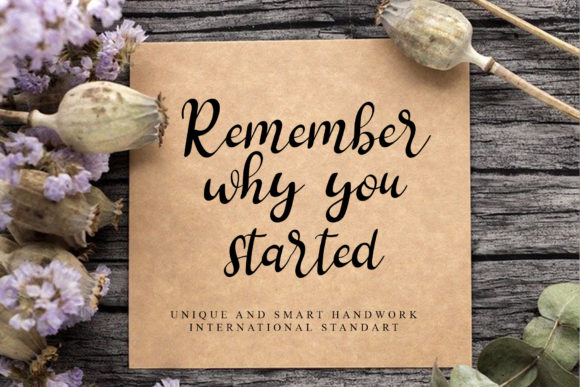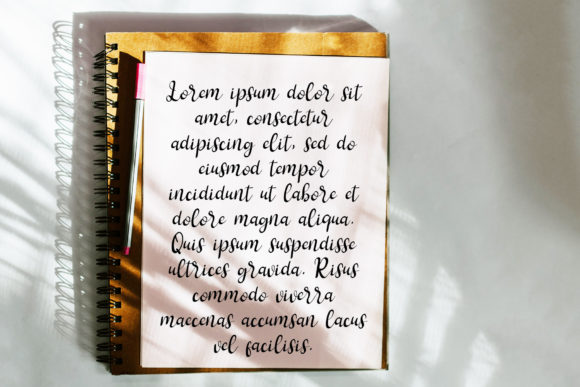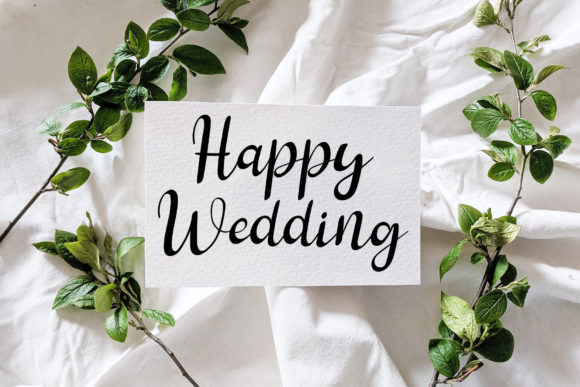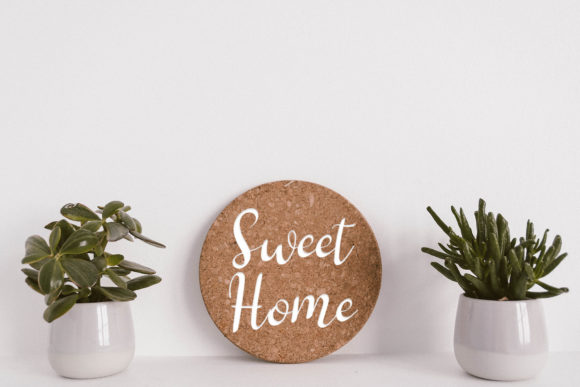
Simple Halloween Font
About Simple Halloween Font
Simple Halloween is a well balanced script font featuring charming, playful characters that seem to dance along the baseline. Add this font to your most creative ideas, and notice how it makes them stand out!